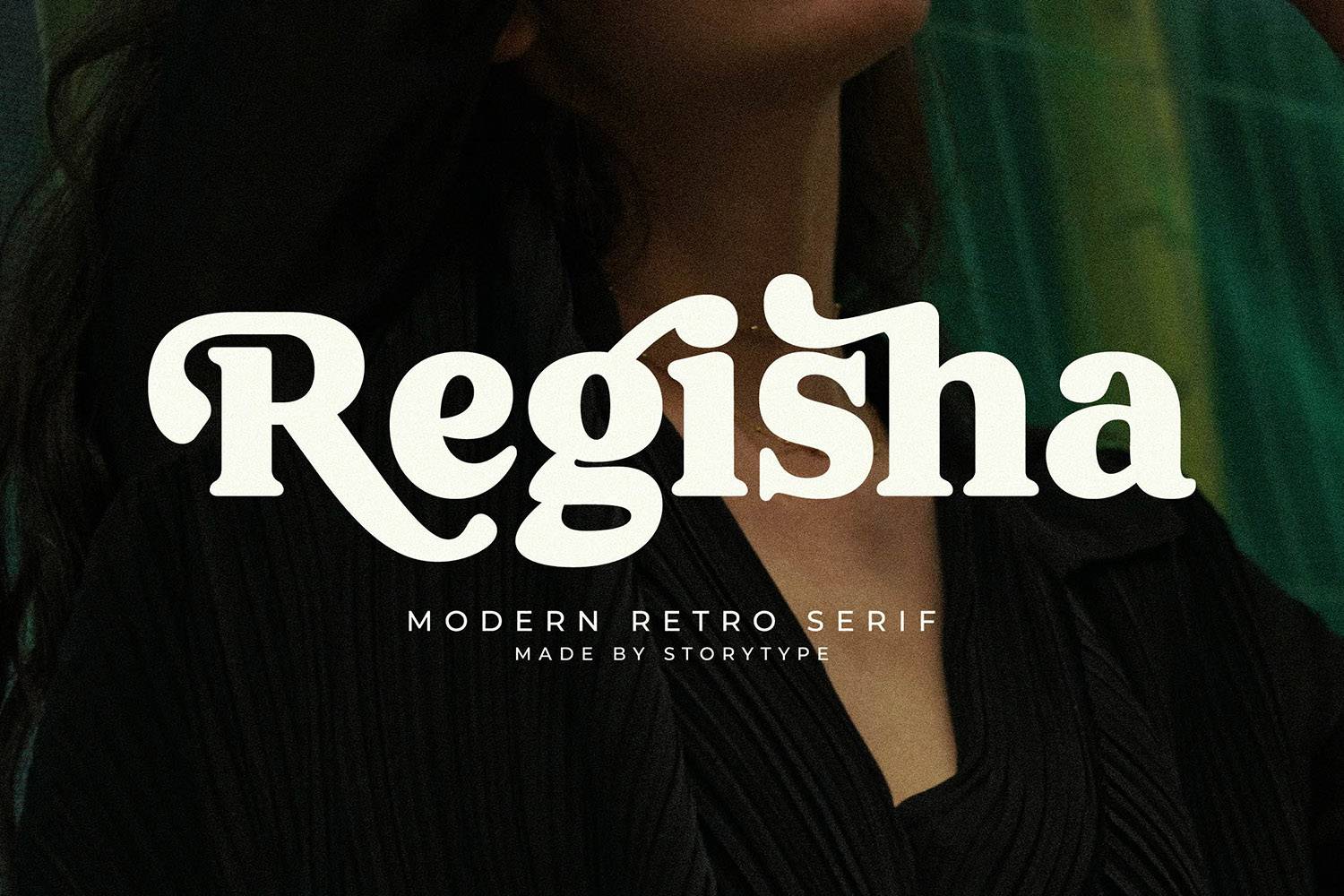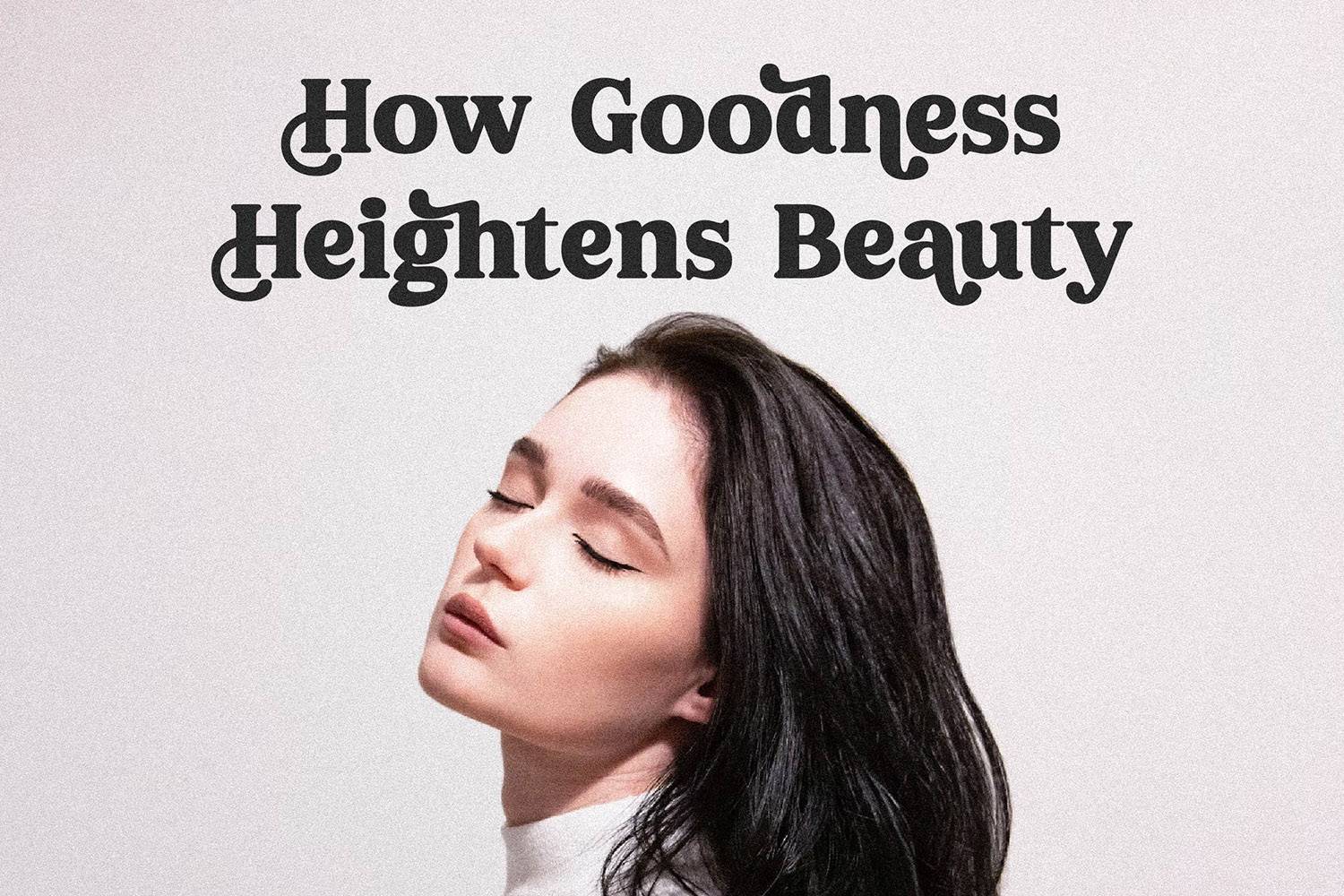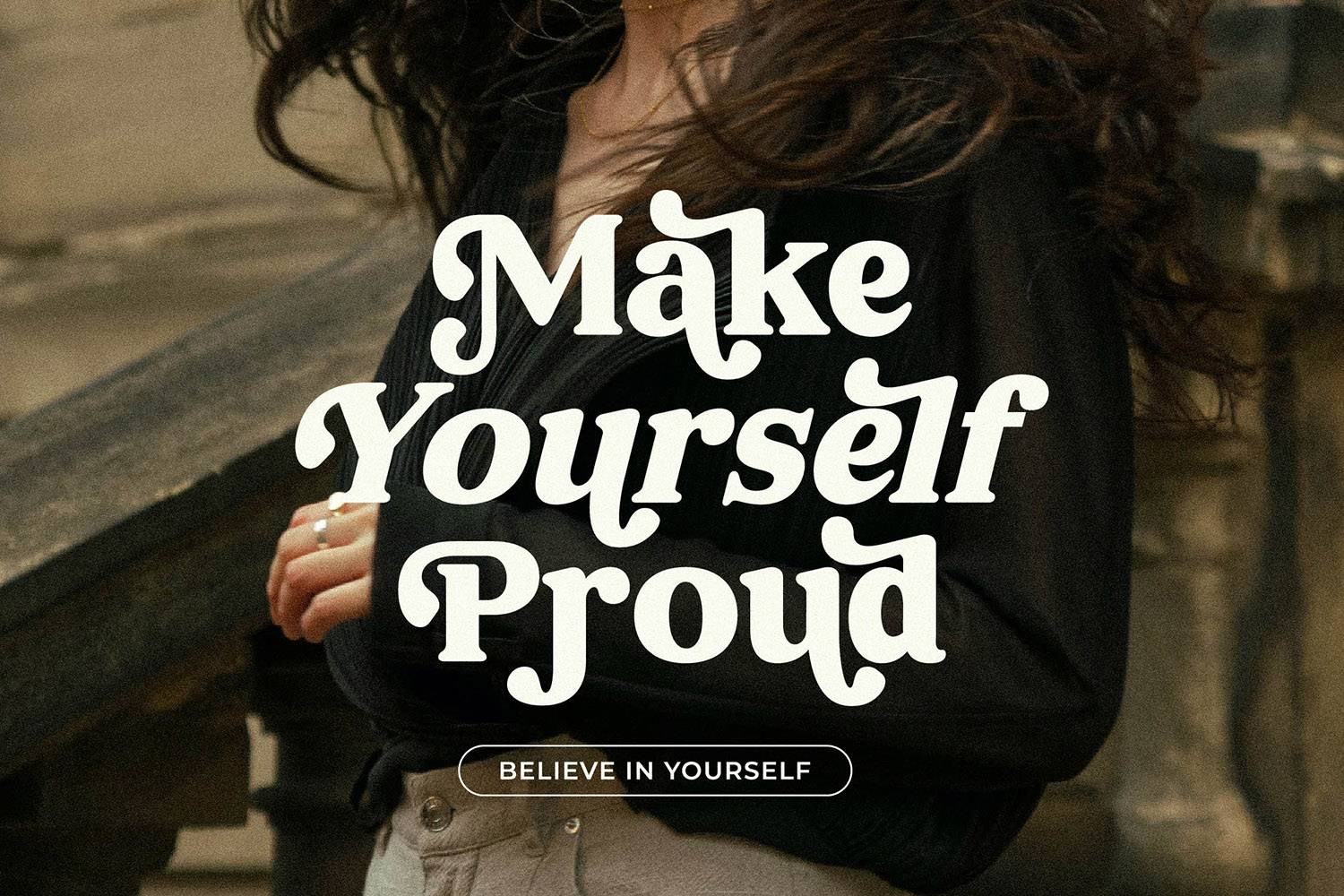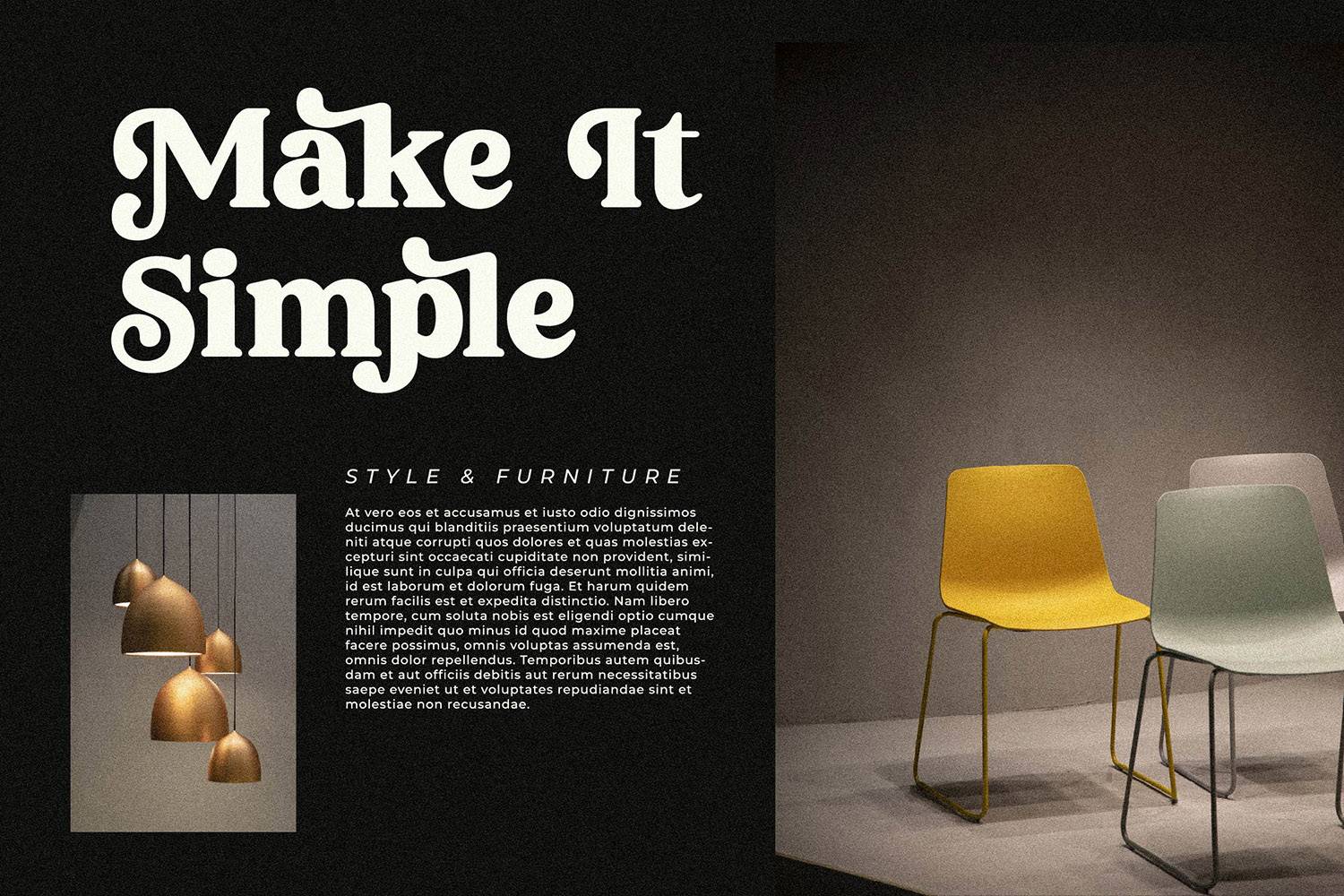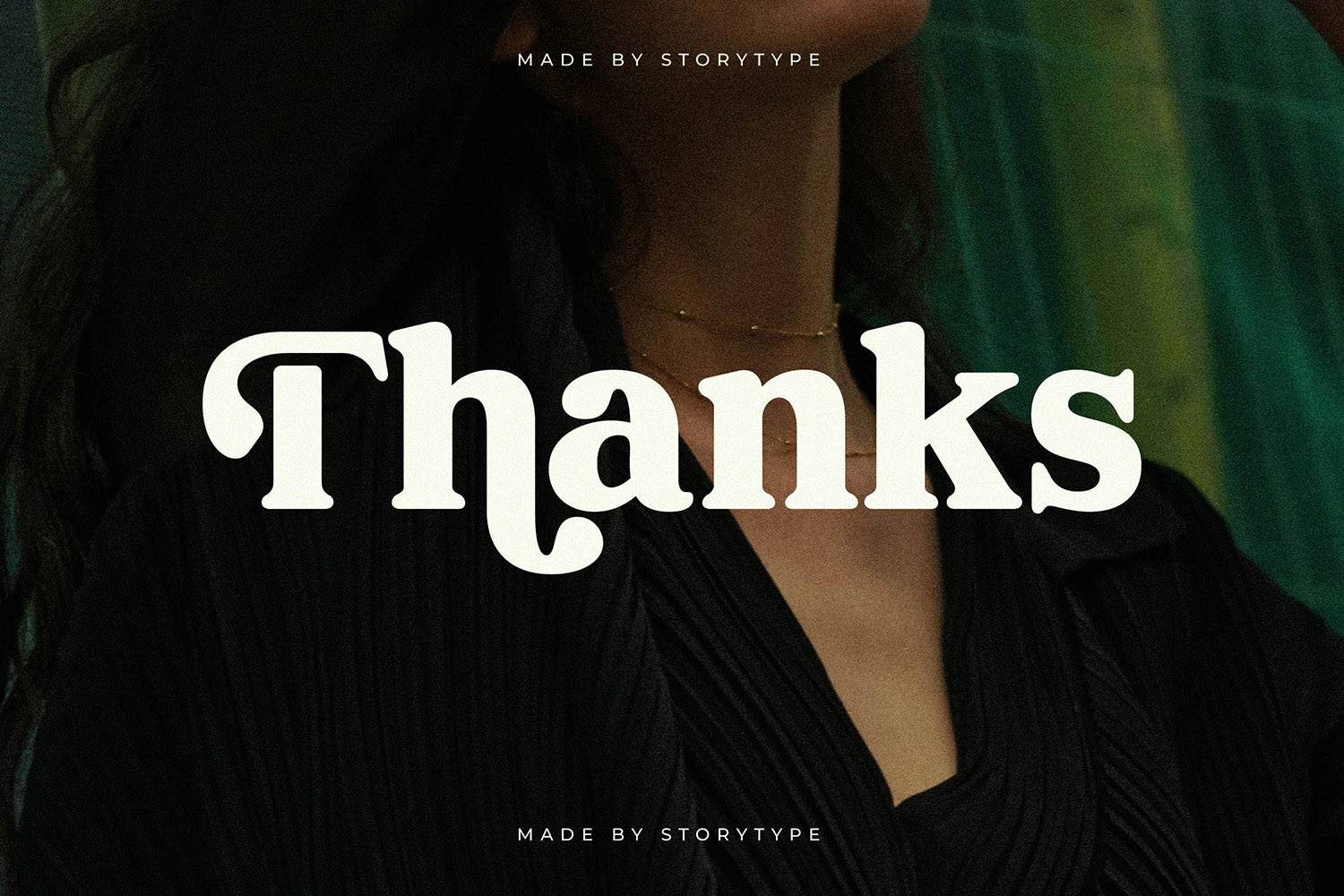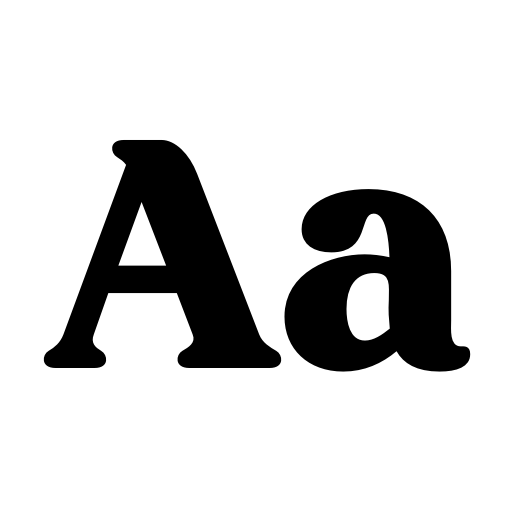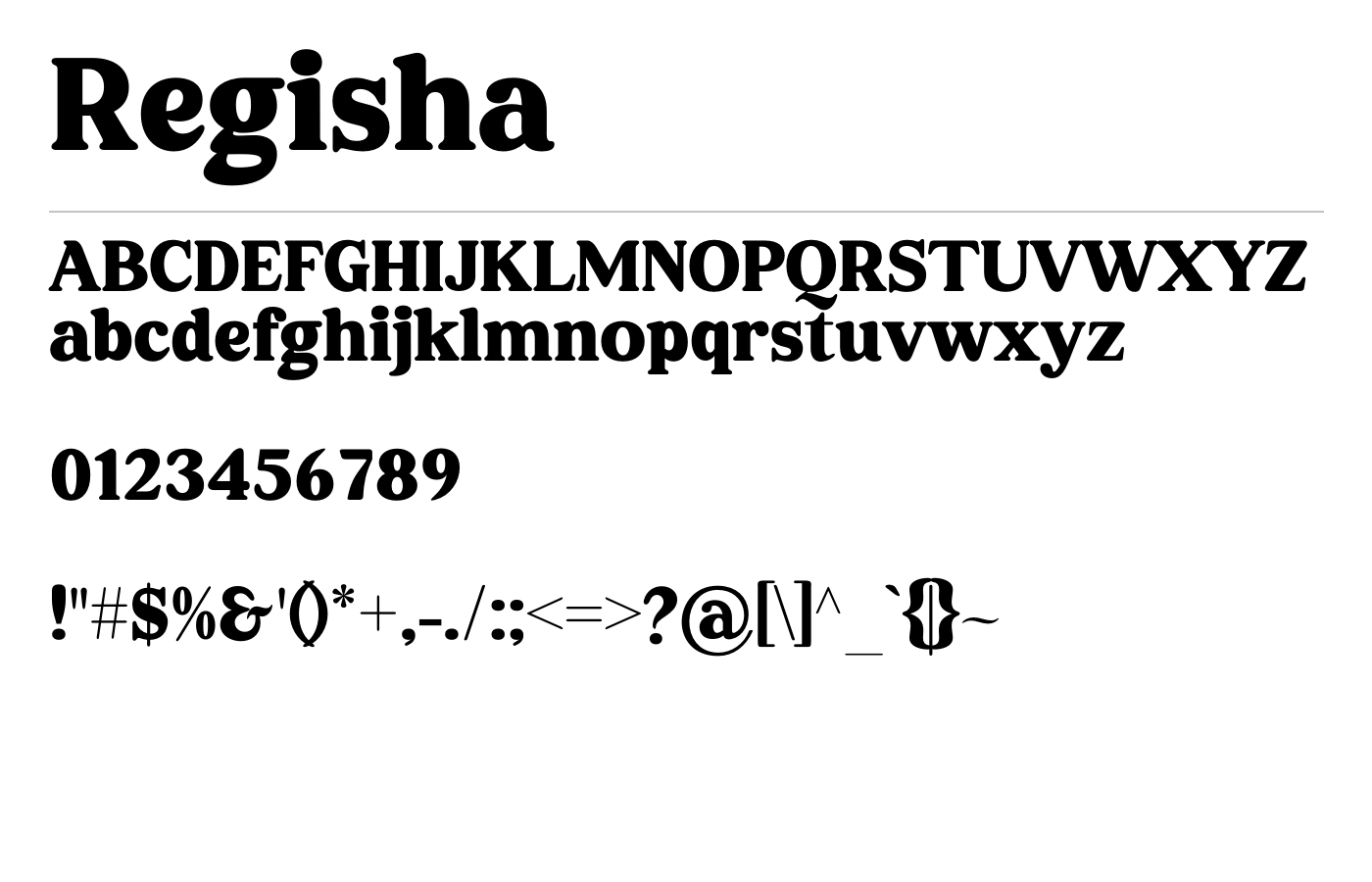
Regisha is a bold slab serif font that combines strong, thick serifs with moderate contrast between strokes, giving it a confident and authoritative appearance. Its pronounced letterforms and sturdy structure make it ideal for impactful headlines, branding, and editorial use where a classic yet robust style is desired. This font works well for projects seeking a vintage, trustworthy feel with a modern edge.
Regisha Font
About Regisha Font